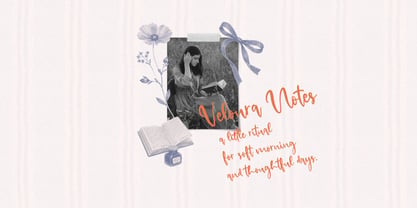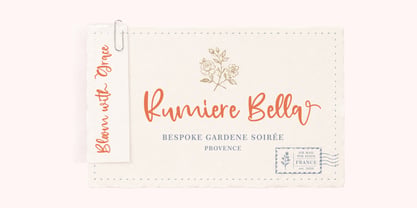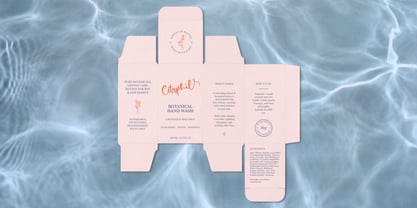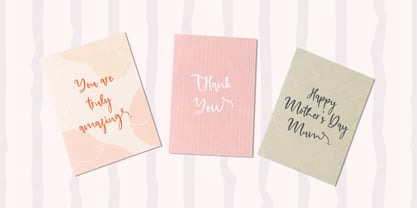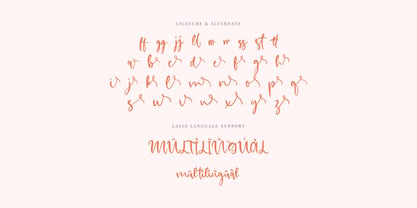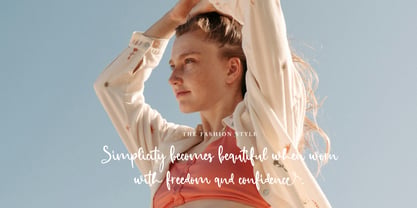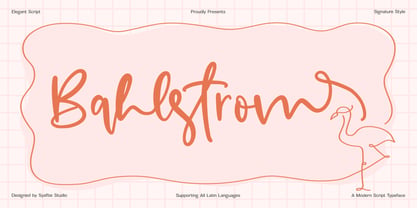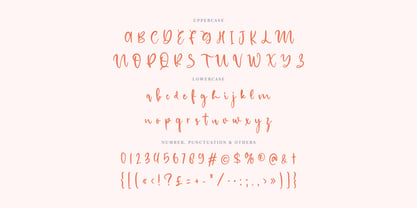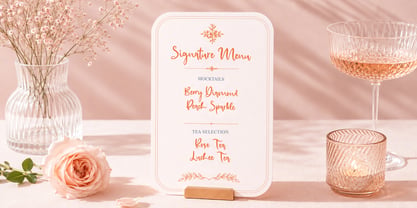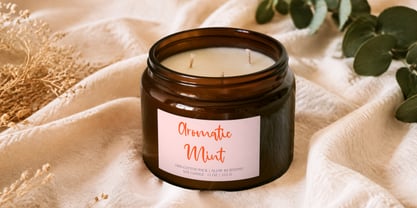
Bahlstrom
Bahlstrom is a modern script typeface crafted to bring a sense of effortless elegance and personal expression into every design. Inspired by the natural rhythm of handwritten signatures, its flowing strokes, graceful curves, and refined details create a balance between sophistication and warmth. Every letter feels intentionally drawn, giving your words a human touch that transforms simple text into a memorable visual statement.
Designed for brands and creatives who value authenticity, Bahlstrom is perfect for fashion branding, beauty products, wedding invitations, packaging, lifestyle projects, social media designs, and editorial artwork. With its elegant character and versatile personality, Bahlstrom adds a premium handwritten feel that helps your designs speak with confidence, charm, and timeless style.